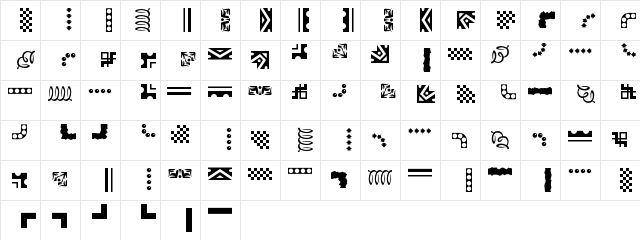
Eezeborder Regular
Design Context for Eezeborder Typeface
Eezeborder is a composed and adaptable typeface that performs quietly and consistently across a wide range of design contexts.